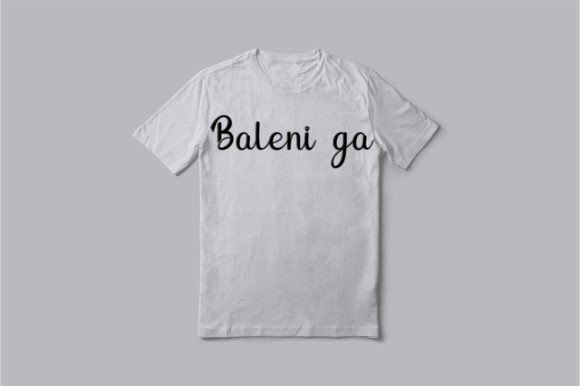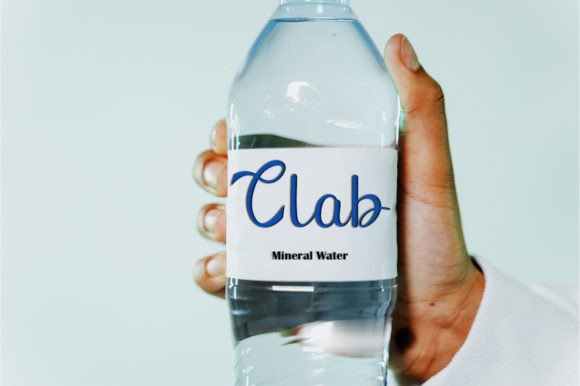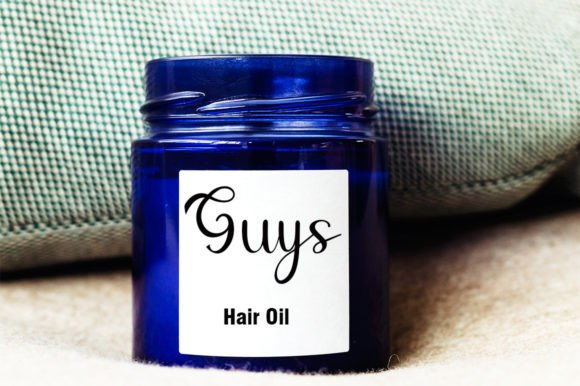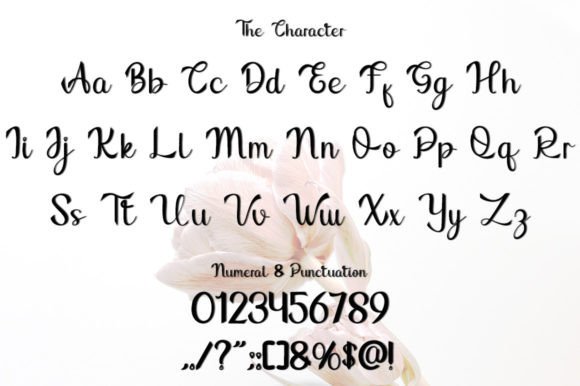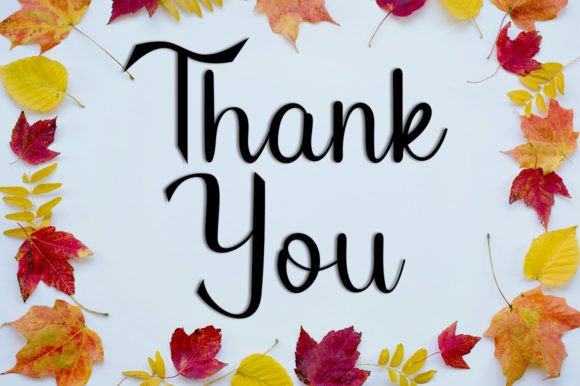
Introduction to February Song Font
February Song is a modern and minimalist handwritten font that combines the warmth of handwriting with a contemporary aesthetic.
Its clean, simple lines make it versatile for a range of design applications, from branding to social media graphics With Simplicity, less is definitely more.